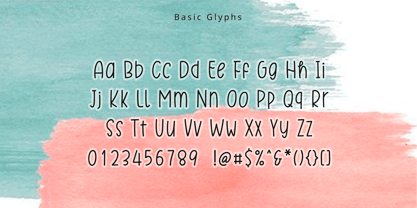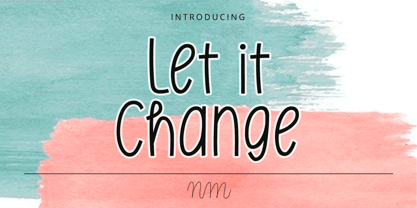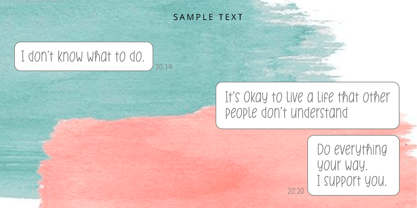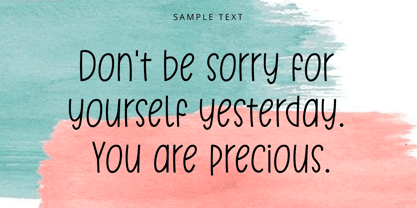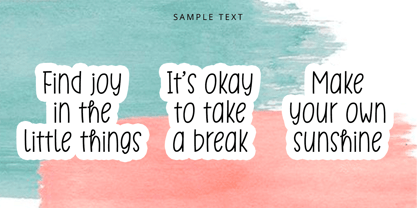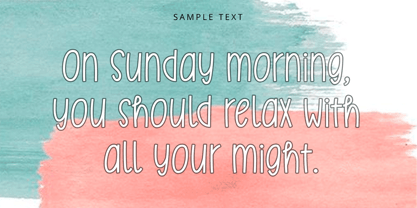
Nm Let it Change
The Nm Let it Change Font Family was designed by Minji Noh and published by NM Fonts. Nm Let it Change contains 1 styles. More about this family
Nm Let it Change is a relaxed and expressive handwritten font inspired by the idea of embracing change and going with the flow. Its natural strokes and playful letterforms create a casual, effortless look with a touch of personality.
Perfect for social media graphics, lifestyle branding, posters, planners, greeting cards, packaging, and everyday creative projects, Nm Let it Change adds a warm handwritten feel without looking overly polished or formal. Its easygoing character makes it a natural choice for designs that feel personal, free, and spontaneous.
With its natural and expressive character, Nm Let it Change works beautifully across a wide range of creative projects. Whether used digitally or in print, it brings a relaxed and authentic handwritten touch to every design.